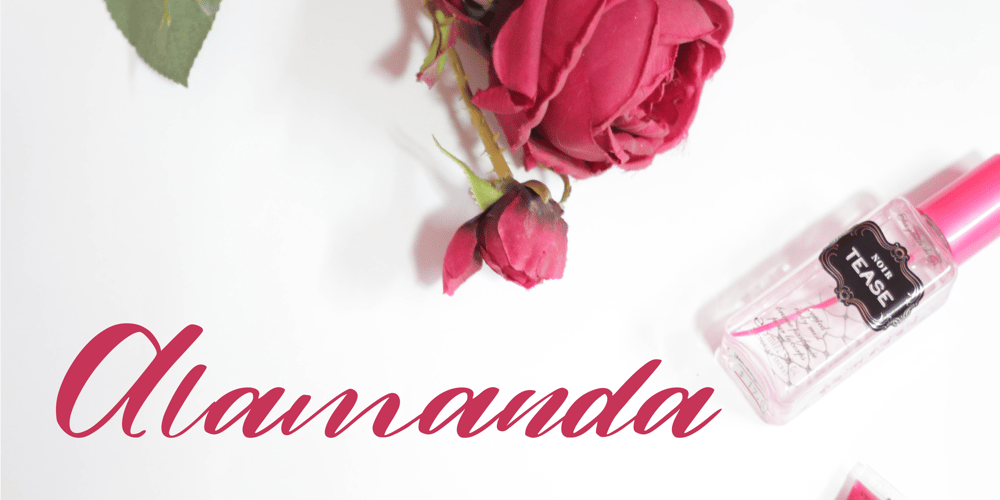
Alamanda
Alamanda font
Alamanda Font Family was designed by Mariyana and published by Goodigital13. Alamanda contains 1 styles and family package options. Alamanda will be great for any projects including : branding, logo, stationery, business card, signage, flyer, brochure, and more. Almost all industries will be fall for this typeface: wedding, events, real estate, architect, law firm, florist, gardening, makeup artist, travel, hotel, musician, and many more .